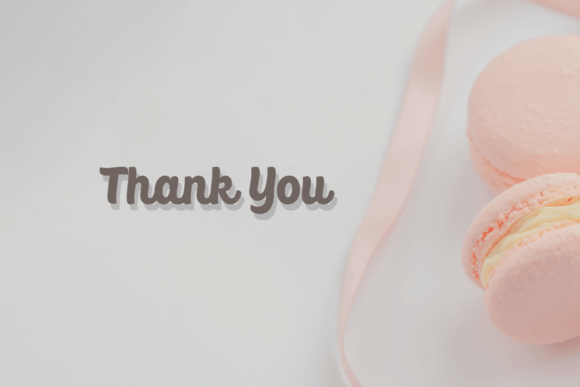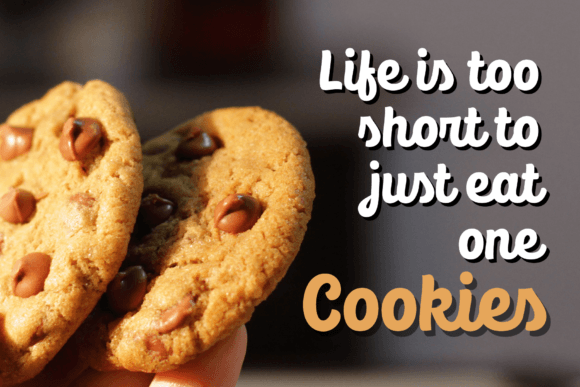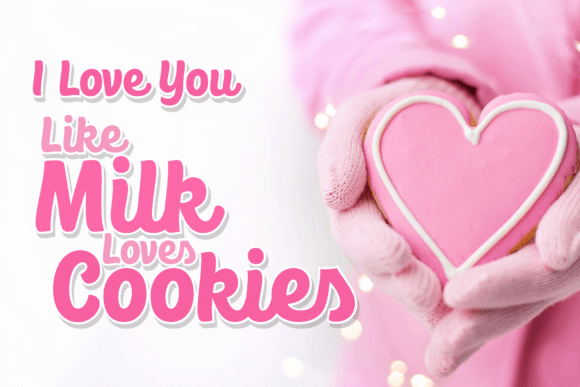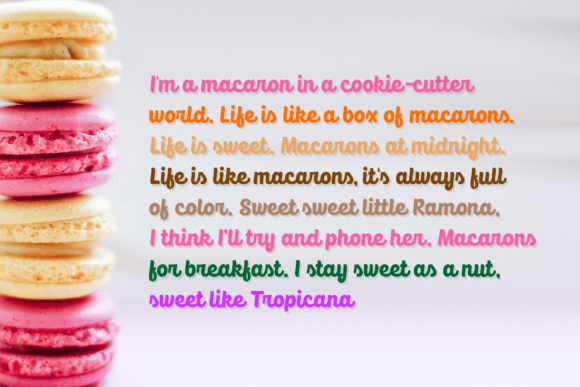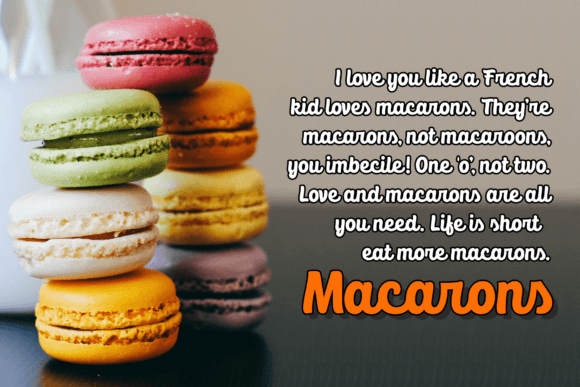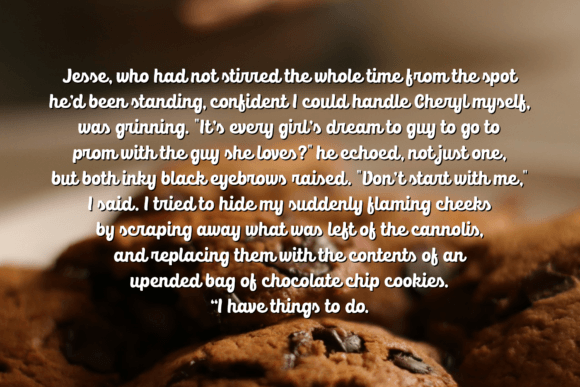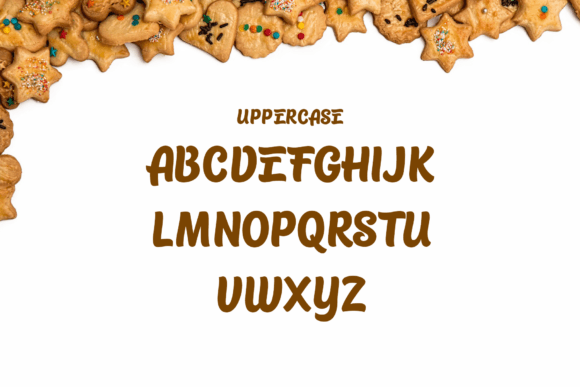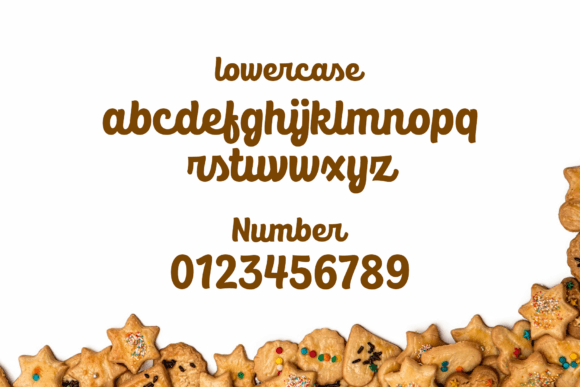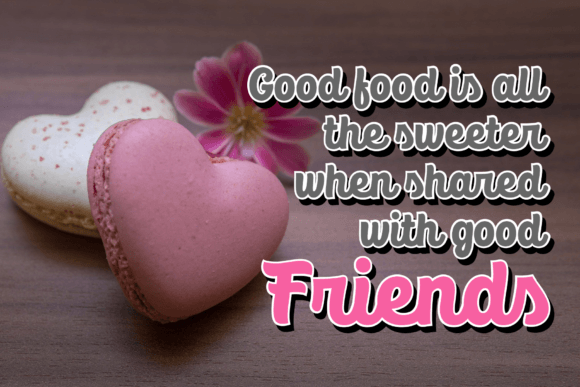
Silvia Font
About Silvia Font
The Silvia Font Download is a bold script typeface that combines professional craftsmanship with modern usability. Designed in both Clean and Textured styles, Silvia offers versatility and personality for any project. The textured version gives a rugged, vintage-inspired look, while the clean style brings clarity and elegance. Together, they provide endless creative opportunities.
Silvia Font was carefully developed using hand-made sketches combined with computer-generated refinements, making it a unique blend of artistry and precision. With its bold strokes and smooth curves, Silvia feels both classic and modern, allowing it to adapt seamlessly to a variety of design contexts.
Features of Silvia Font
The Silvia Font Download comes with multiple features that make it an excellent addition to any designer’s collection:
• Two distinctive styles: Clean and Textured
• Bold and eye-catching script design for maximum impact
• Perfect readability in both print and digital media
• Works beautifully in condensed spacing for web use
• Multiple weights for extra flexibility in branding projects
These features make Silvia a professional-quality font that stands out while remaining practical.
Best Uses for Silvia Font
The Silvia Font Download is ideal for a wide range of creative and professional projects, including:
• Logotype & Branding – Create unique, memorable logos with a bold, stylish touch
• T-Shirts & Apparel – Add character and personality to clothing designs
• Posters & Magazines – Make titles and headlines stand out with vintage flair
• Advertising & Signage – Grab attention in both physical and digital campaigns
• Digital Lettering Art – Perfect for hand-lettered designs and creative compositions
• Web Use – Clean strokes and condensed spacing make it beautiful on screens
Its adaptability ensures that Silvia works just as well in high-end corporate branding as it does in casual, retro-inspired designs.
Why Choose Silvia Font?
Designers love the Silvia Font Download for its ability to deliver both classic and trendy vibes. The textured style instantly adds a vintage look, while the clean version ensures modern professionalism. This balance makes it a versatile choice for projects that need personality without losing readability.
The availability of multiple weights also makes Silvia a reliable option for branding projects that require consistency across various formats. Whether you’re designing logos, creating apparel graphics, or working on editorial layouts, Silvia provides the boldness and charm you need.
The Silvia Font Download is more than just a bold script—it’s a versatile design tool crafted for creative professionals. With its Clean and Textured styles, Silvia delivers both elegance and vintage character, making it a great choice for logos, posters, apparel, and digital lettering.